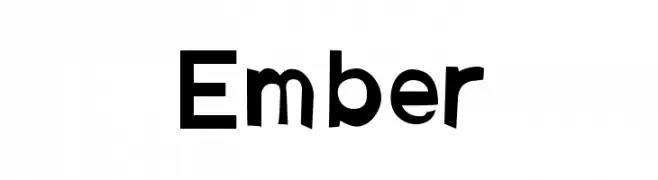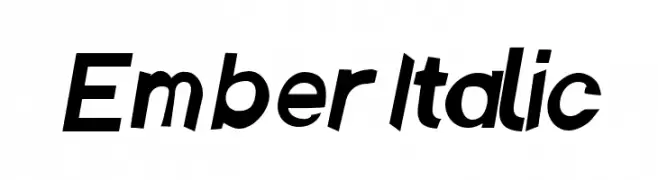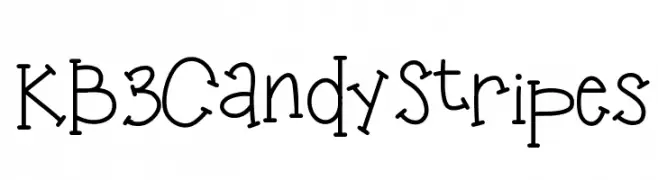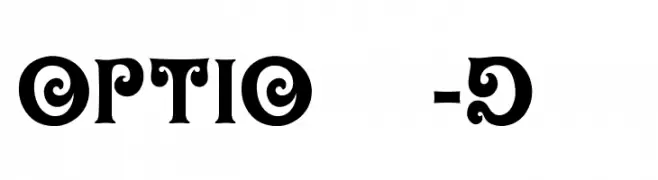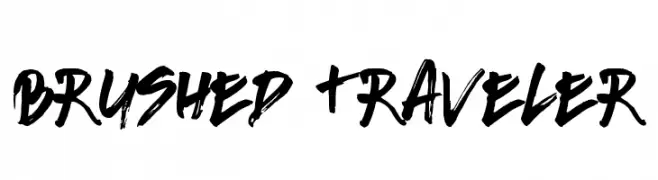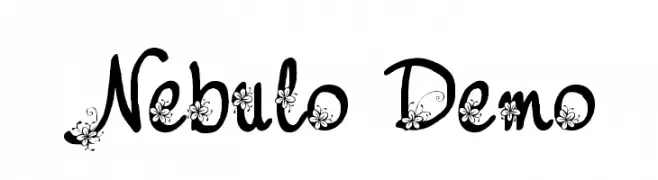
A bold, rounded font with a playful and friendly style.
A playful, bold font with dynamic and whimsical character shapes.
A bold, modern italic font with a dynamic slant and consistent stroke width.
A playful, chocolate-inspired font with bold, bubbly characters.
A playful, whimsical font with a hand-drawn feel and lively character design.
A bold, decorative font with swirling, ornate characters.
A bold, brush-style font with dynamic and expressive strokes.
A dynamic, expressive handwritten font with elongated, fluid strokes.
A decorative font with floral elements and a playful, hand-drawn style.